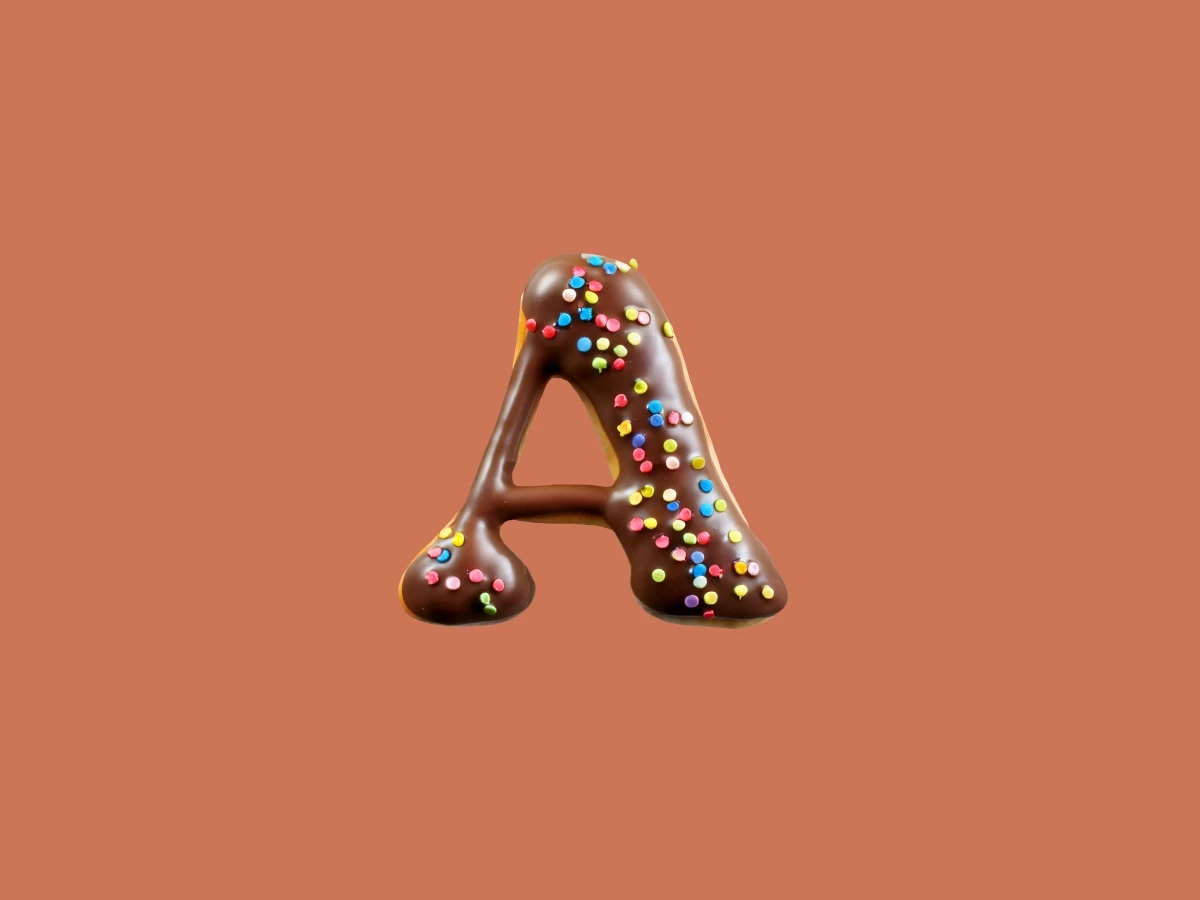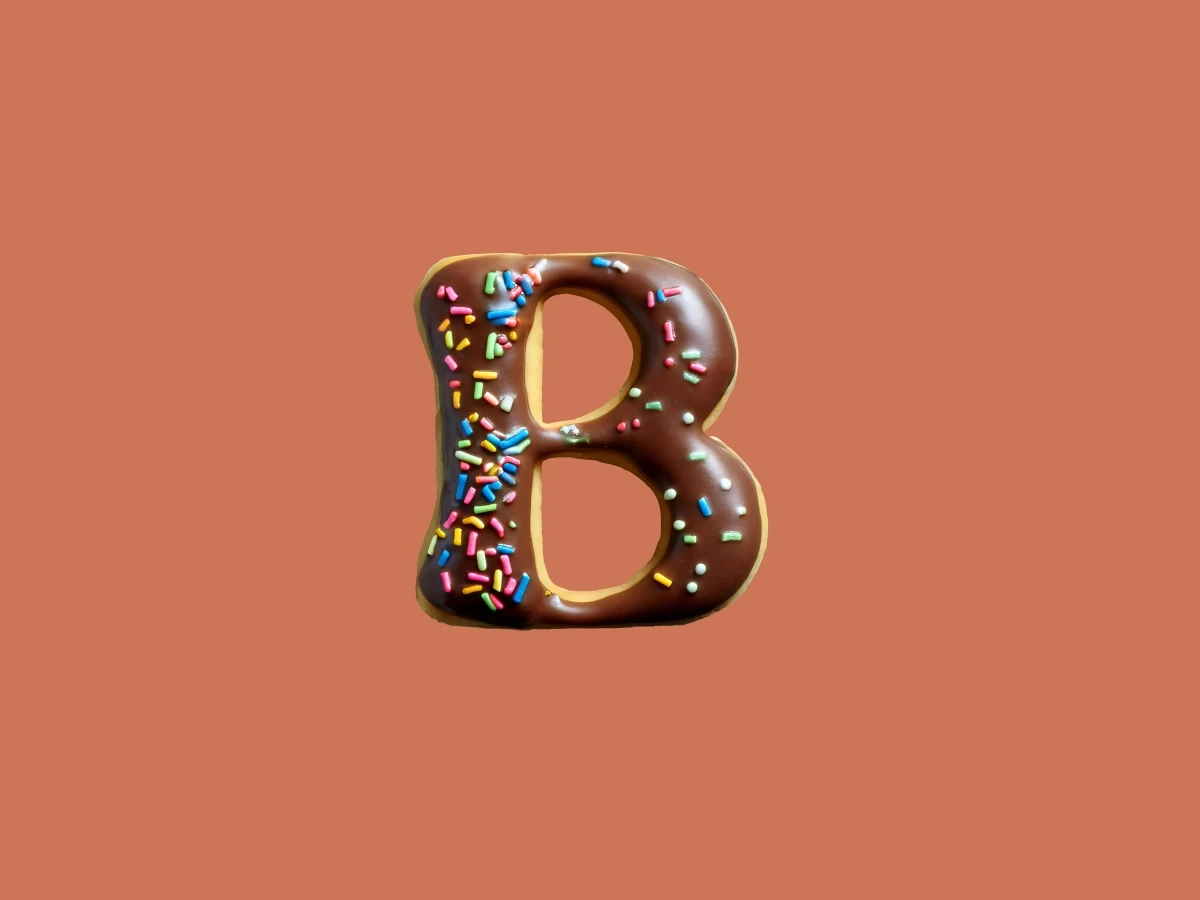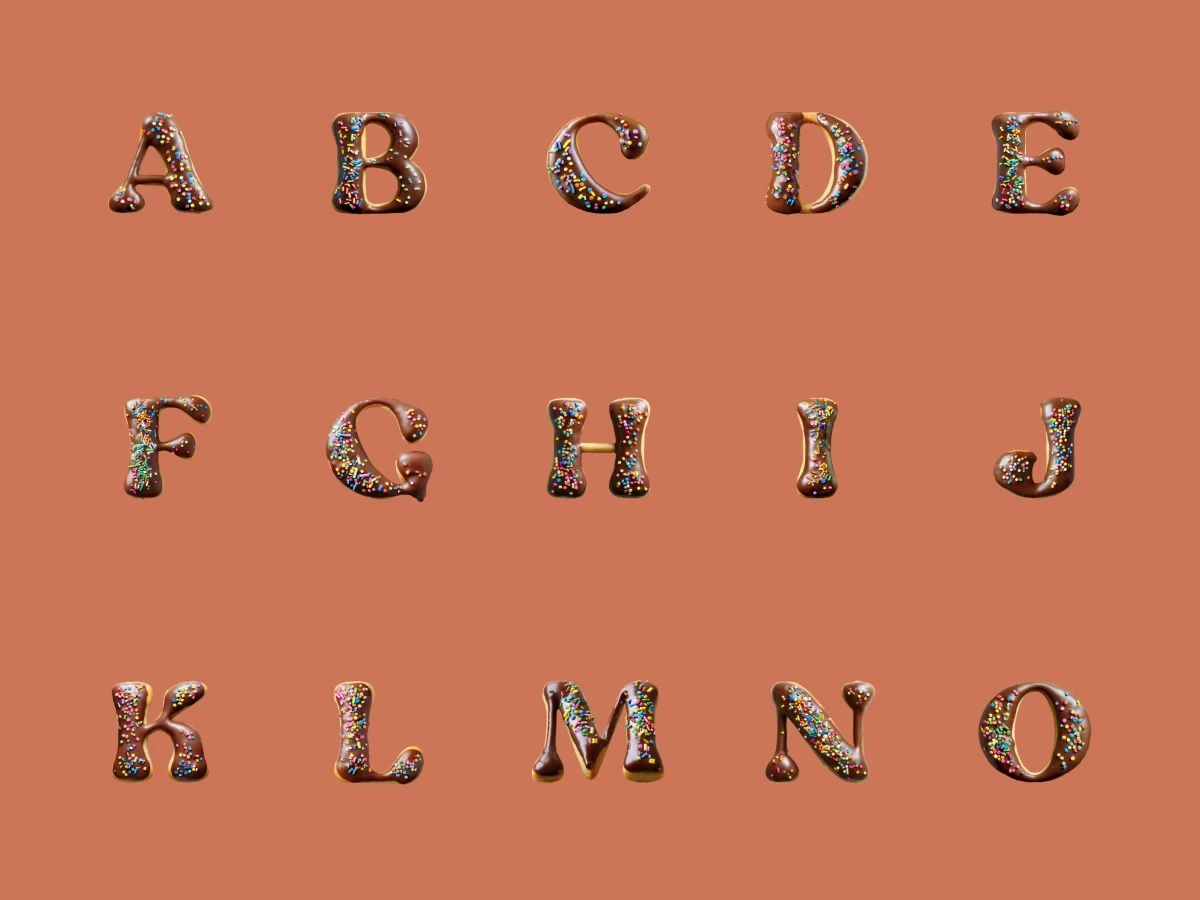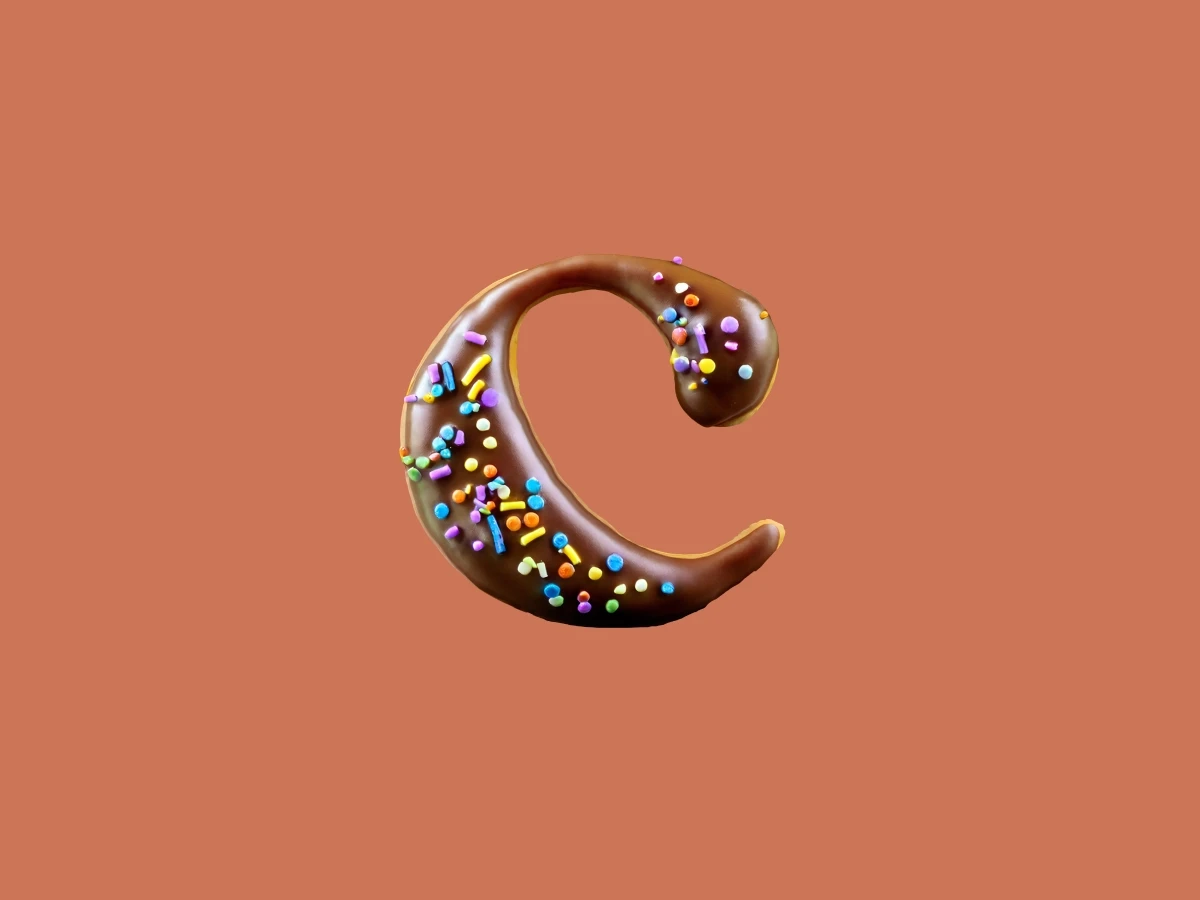
State Trooper
Ever wondered what a State Trooper’s daydream might look like? Here’s a hint: it’s round, made of donut dough, and covered in chocolate with a generous sprinkle of sprinkles. “State Trooper” is our sweet salute to the most delicious of stereotypes, offering a playful twist on typography with a tasty design. No donuts were harmed in the making of this theme — but they might make you crave one.